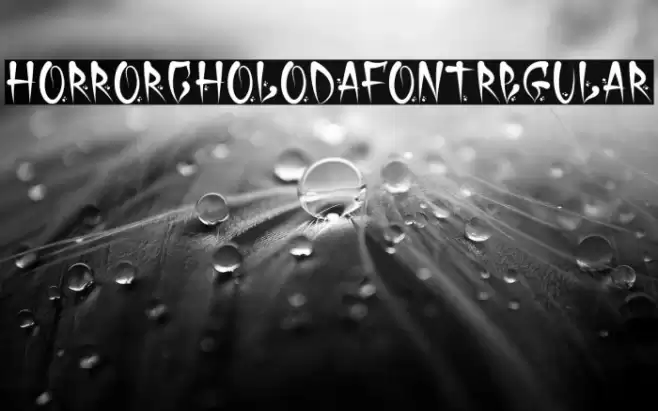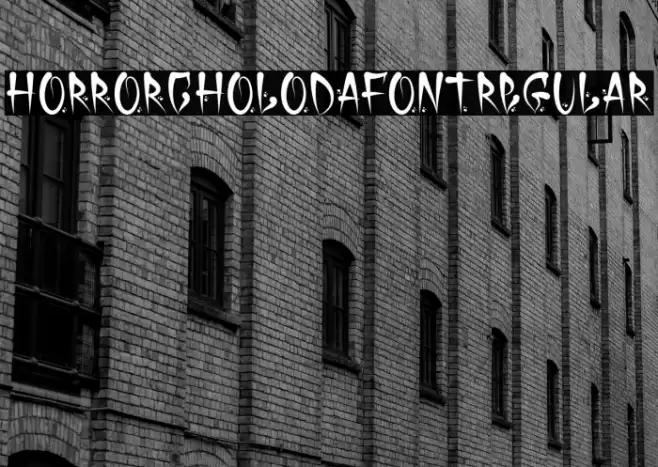
HorrorCholoDaFontRegular Font
HorrorCholoDaFontRegular Description
This font features a unique and edgy design with sharp, pointed serifs and an overall gothic aesthetic. The characters are elongated with dramatic curves and angular strokes, giving it a distinct horror-themed appearance. The uppercase and lowercase letters maintain a consistent style, with some letters incorporating small decorative elements like dots or spikes. The numbers follow the same stylistic cues, ensuring a cohesive look across all characters. This font is perfect for projects that require a bold and striking visual impact.
A gothic, horror-themed font with sharp serifs and dramatic curves from Regular fonts.
- Proposed Projects: Ideal for horror movie posters, Halloween event flyers, or any design needing a spooky, dramatic flair.
- Overall Style: Gothic, Horror
- Use Case: Headlines, Posters, Logos